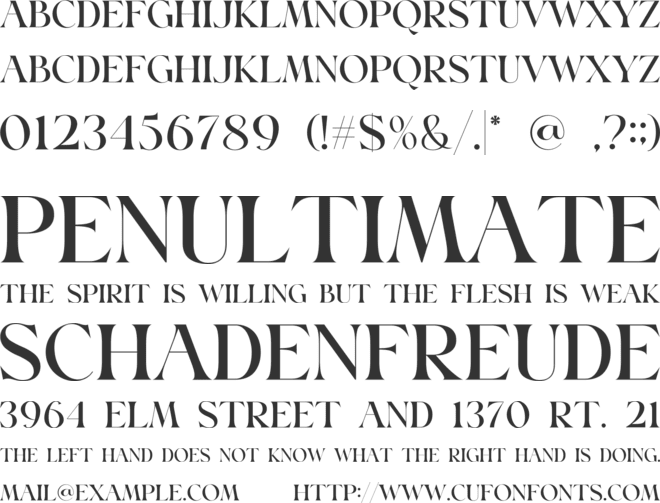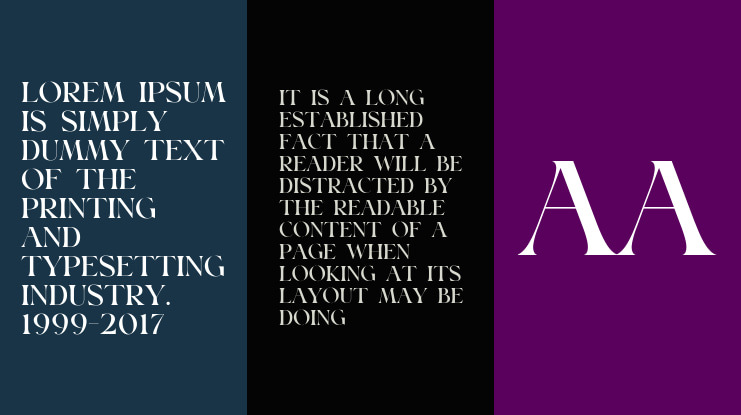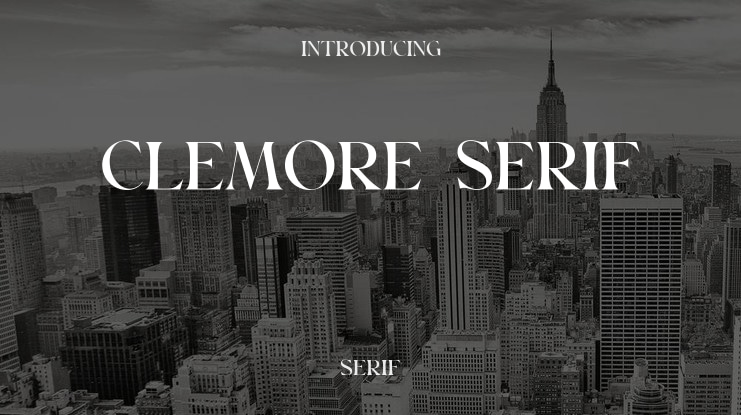
Clemore Serif Font Family
Clemore Font Duo is a modern and elegant typeface with a signature script font, Clemore Font Duo comes with clean lines and smooth curves perfect for stunning logos, wedding designs, quotes, display text and anything else you want to get. perfect result for your project!